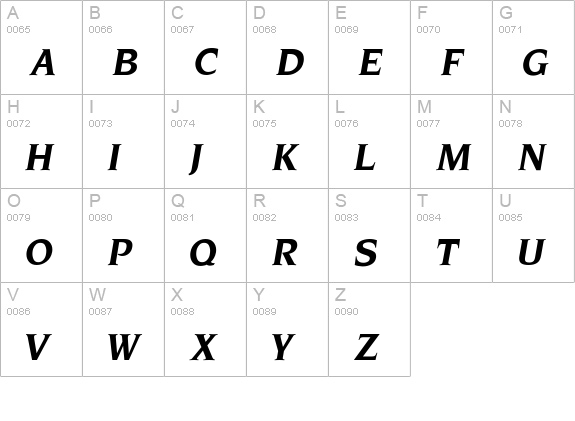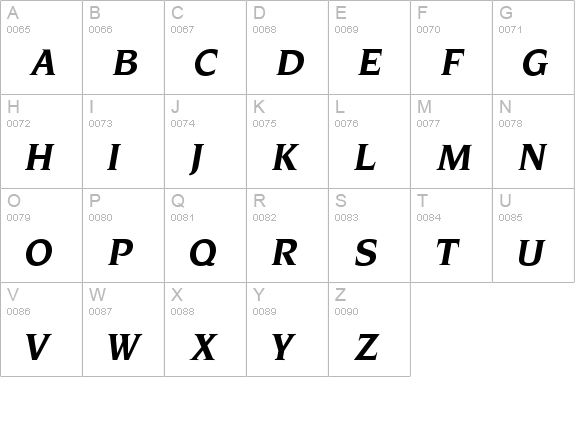
Neuvarese-BoldItalic Font Details
Neuvarese-BoldItalic is a stunning and versatile font that effortlessly combines boldness with elegance. Its italicized design adds a touch of sophistication to any project, making it perfect for a wide range of applications. The sleek curves and sharp angles of this typeface create a sense of modernity and style that is sure to captivate any audience. What sets Neuvarese-BoldItalic apart is not only its striking appearance but also its accessibility. This font is available for free download at FontsMarket.com, making it easily accessible to anyone looking to enhance their designs with a touch of class. Whether you're designing a website, crafting a logo, or creating printed materials, Neuvarese-BoldItalic is the perfect choice to make your work stand out. Download Neuvarese-BoldItalic today and unleash the endless possibilities it offers for your creative projects. Let this font be the key to unlocking your design potential and wowing your audience with its bold and italicized charm.